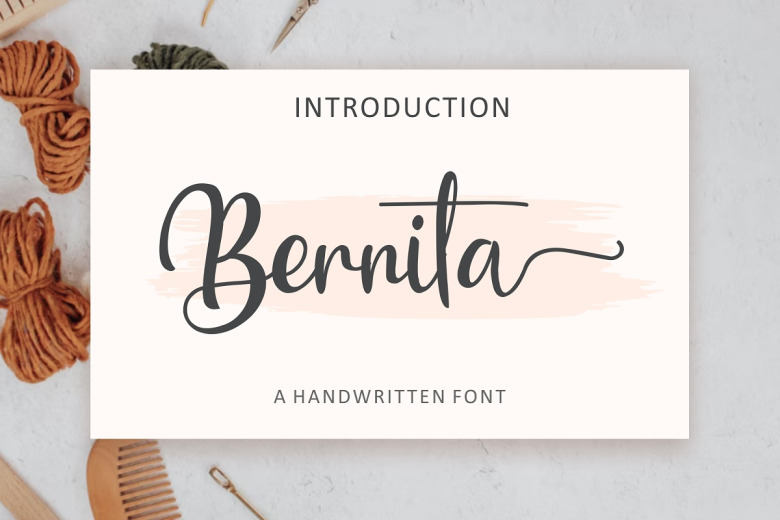
Bernita Font
Bernita is another flowing and authentic Handwritten Script font. This font is suitable for use in any branding project, like logos,t-shirt printing,and more. remarkable grace in different situations. PUA encoded Bernita so you can easily access all of the glyphs and swashes!
Bernita Handwritten Script Font